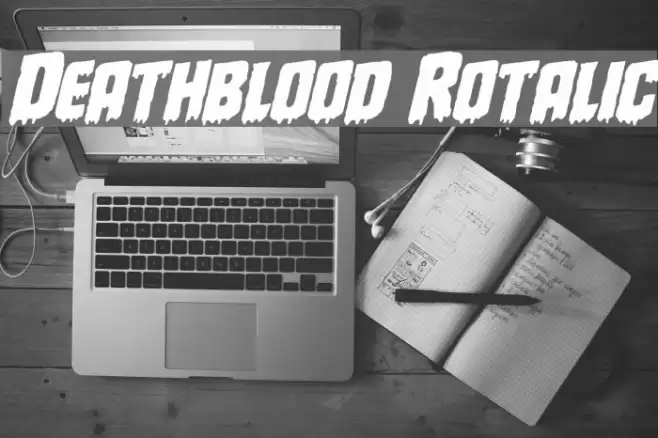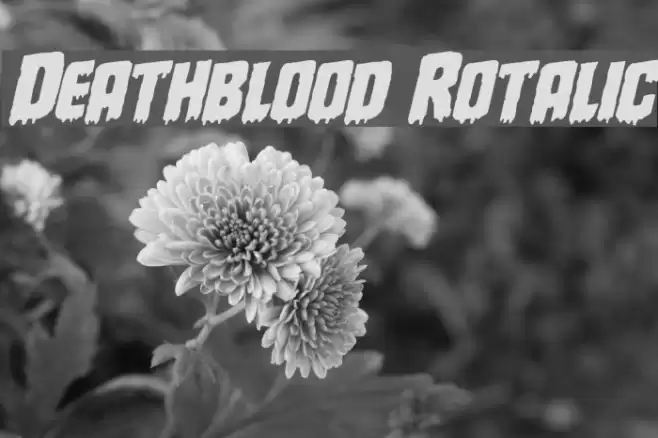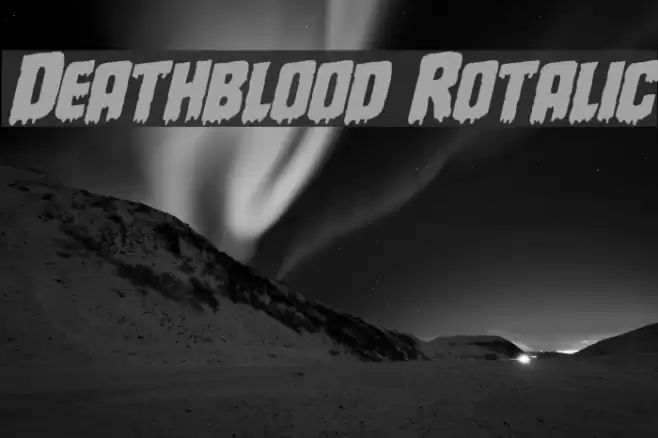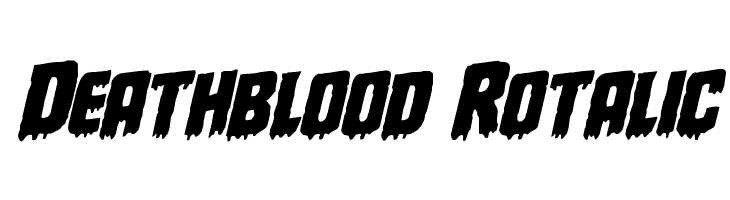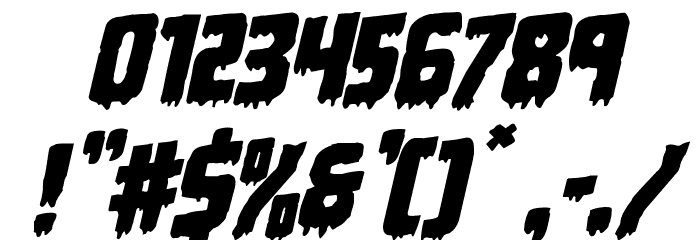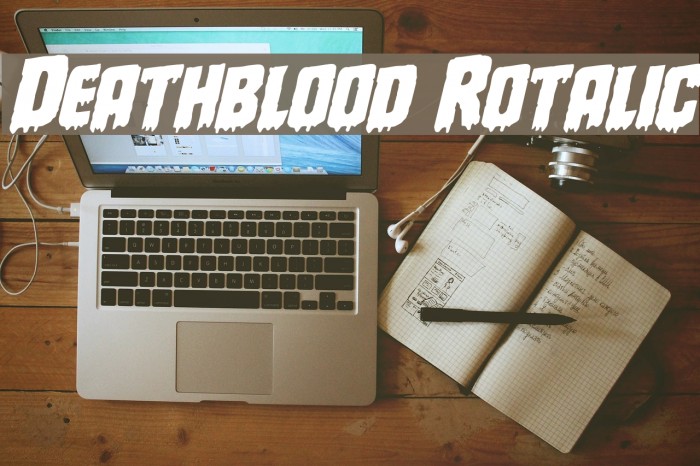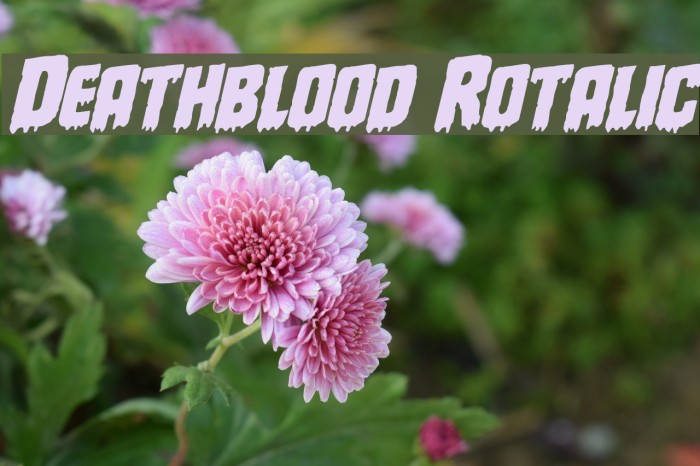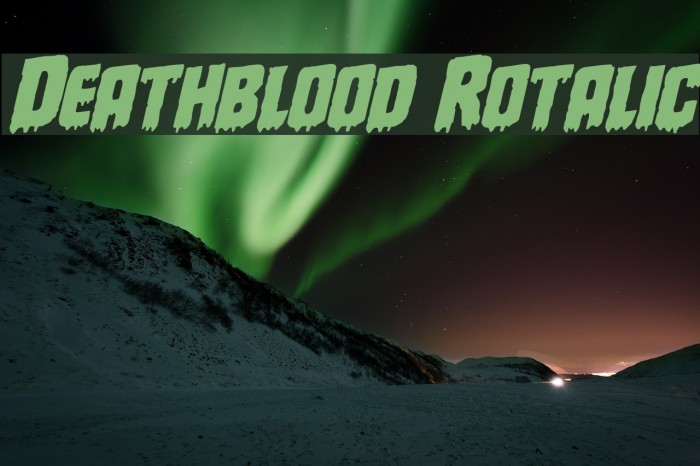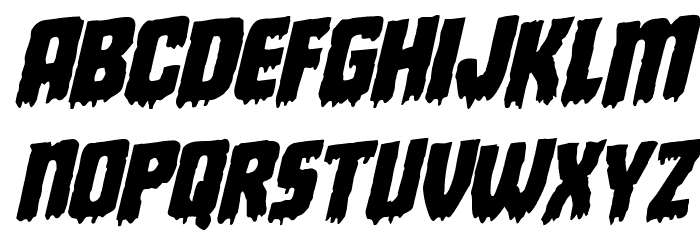
Deathblood Rotalic Font
Deathblood Rotalic Description
This font features a bold and aggressive style with a distinct slanted orientation, giving it a dynamic and energetic appearance. The characters are heavily stylized with sharp edges and irregular contours, reminiscent of a horror or thriller theme. The uppercase letters are prominent and commanding, while the lowercase letters maintain the same intense style. Numbers and special characters are equally bold, ensuring consistency across all glyphs. The font's design suggests a sense of urgency and intensity, making it ideal for attention-grabbing headlines or thematic designs.
A bold, slanted, and aggressive font with a horror-themed style from Uncategorized fonts.
- Proposed Projects: Ideal for horror movie posters, Halloween event flyers, video game titles, or any project requiring a dramatic and intense typeface.